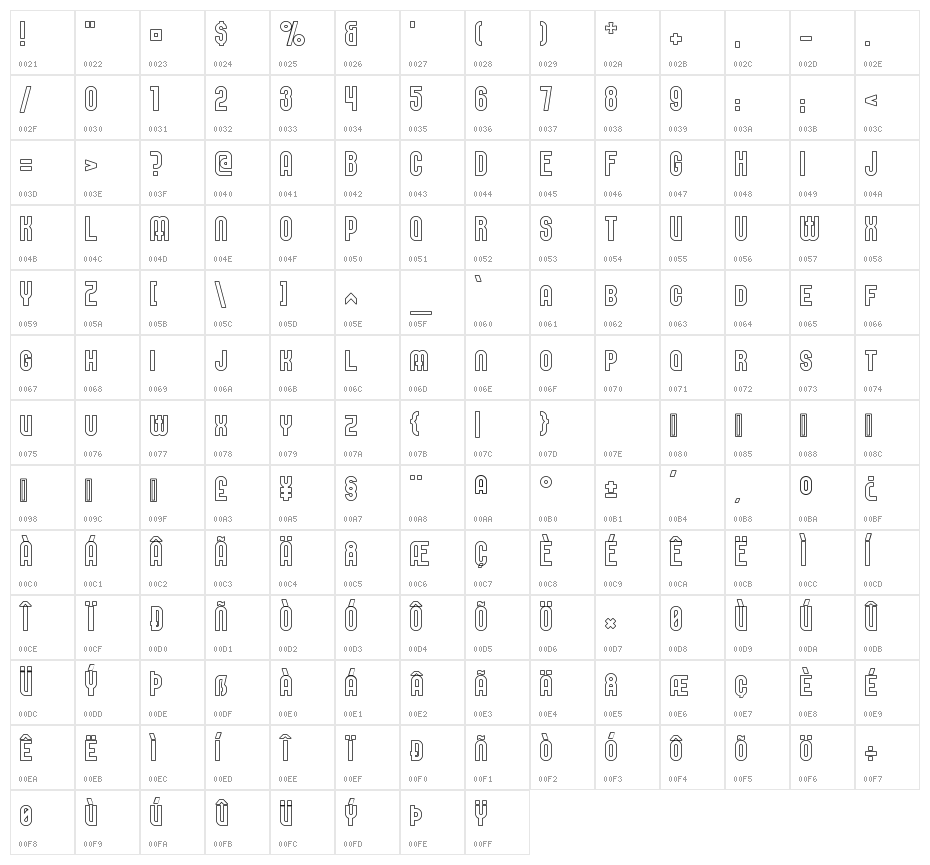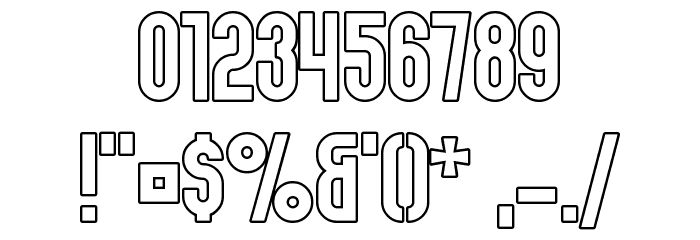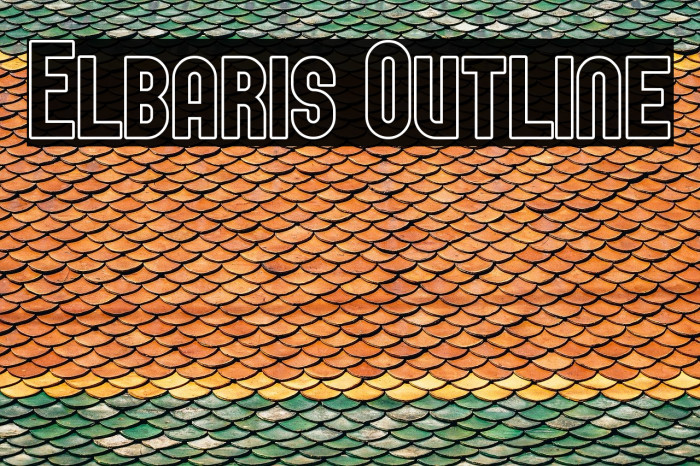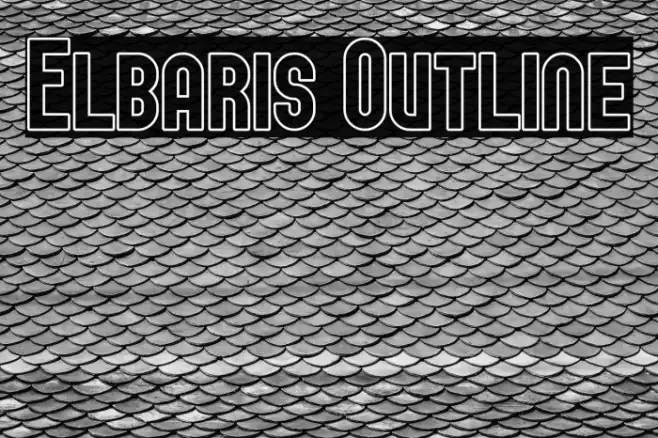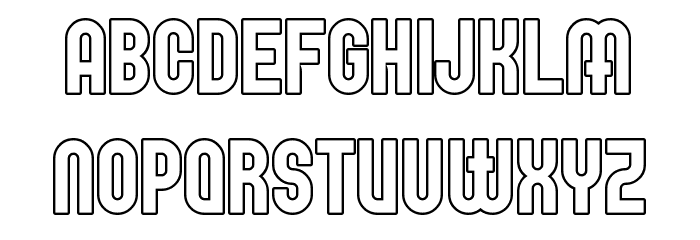
Elbaris Outline Font
Elbaris Outline Description
This typeface features a bold, outlined style that gives each character a strong, impactful presence. The uppercase and lowercase letters maintain a consistent width, creating a uniform appearance. The geometric shapes and clean lines contribute to a modern and futuristic aesthetic. The numbers and special characters are designed with the same outlined effect, ensuring a cohesive look across all elements. This font's distinct style makes it ideal for attention-grabbing designs.
| Proposed Projects | Ideal for posters, headlines, branding, and any design requiring a bold statement. |